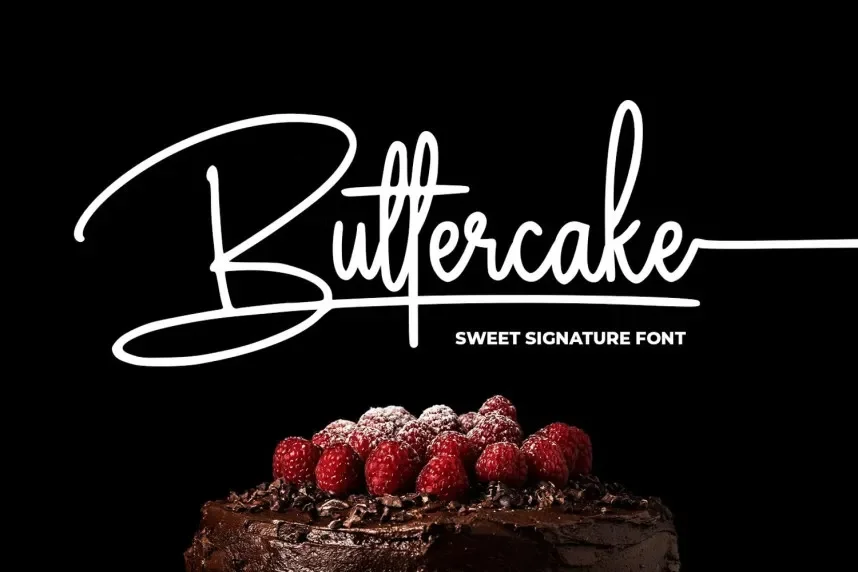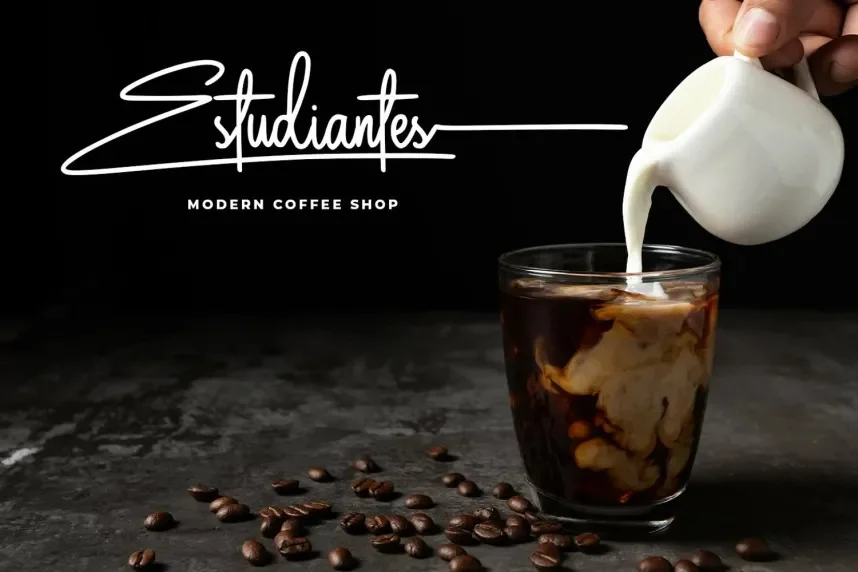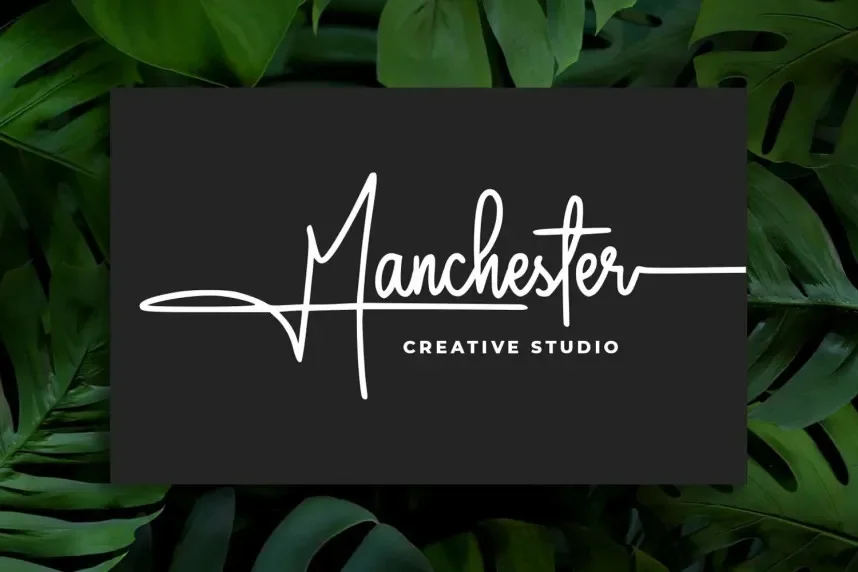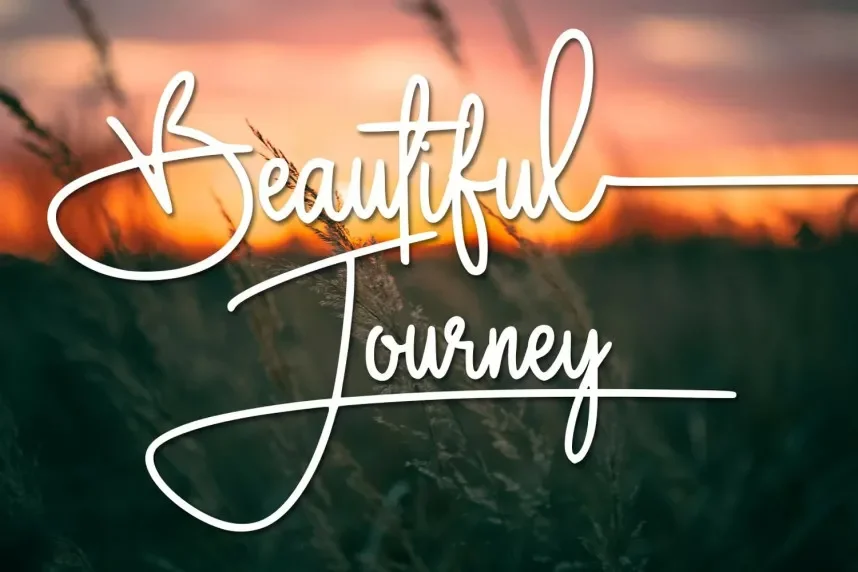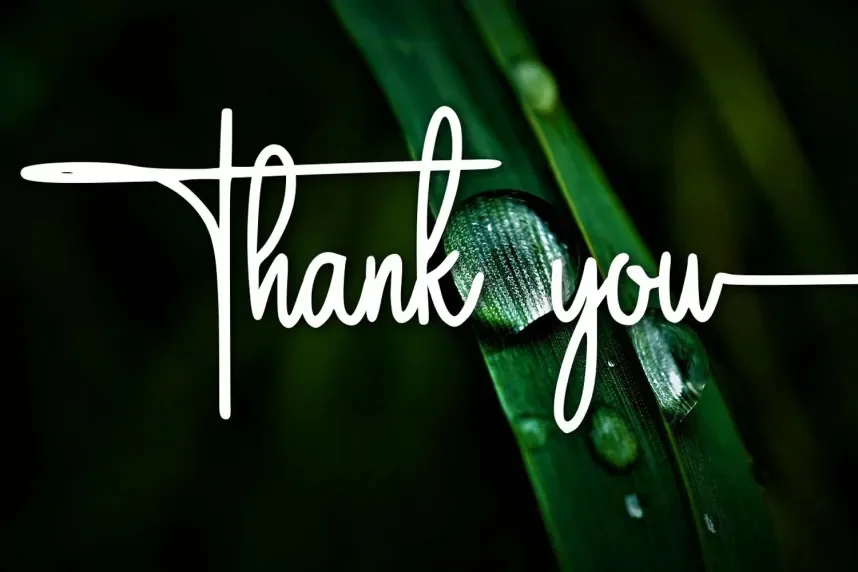
Buttercake Signature Font addresses the need for casual handwritten typography that remains readable in branding and print. Many informal script fonts become hard to read when scaled or printed.
Buttercake Signature is a handwritten script font with rounded curves, natural letter connections, and moderate stroke contrast. The font keeps spacing open, helping text remain clear in short phrases and names.